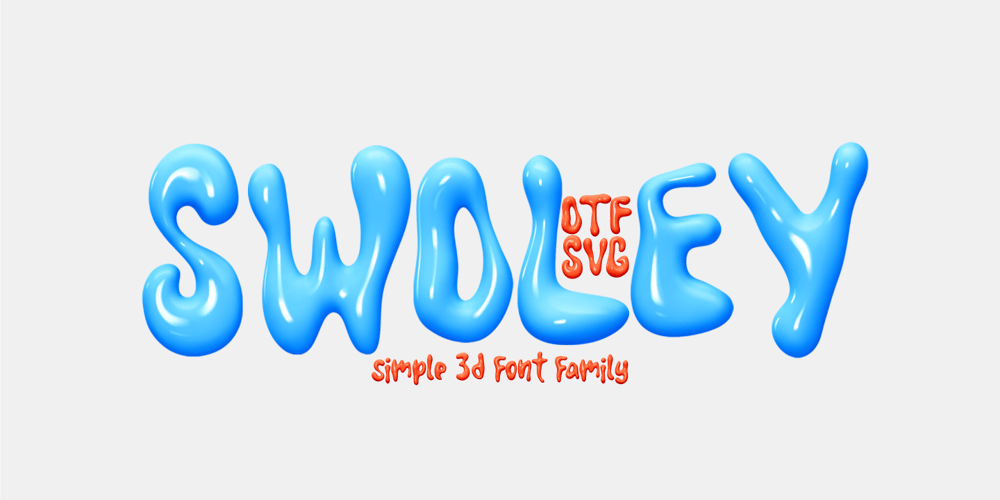
Swoley Font Family was designed by Lauritta Ivanova and published by Luxfont. Swoley contains 10 styles and family package options. Introducing the Swoley family of cool 3D color fonts – where the letters are like a liquid flowing into glyphs, creating an amazing fluid visual effect. This unique type family combines realism and modernity, adding amazing details to your projects. Pairs perfectly with Volufont.Features:- Real Plastic effect- KerningIMPORTANT:- Check the glyphs in the font before buying!- SVG fonts contain raster letters.- Check it www.colorfonts.wtf – Try a FREE DEMO version before buying. ld.luxfont@gmail.com